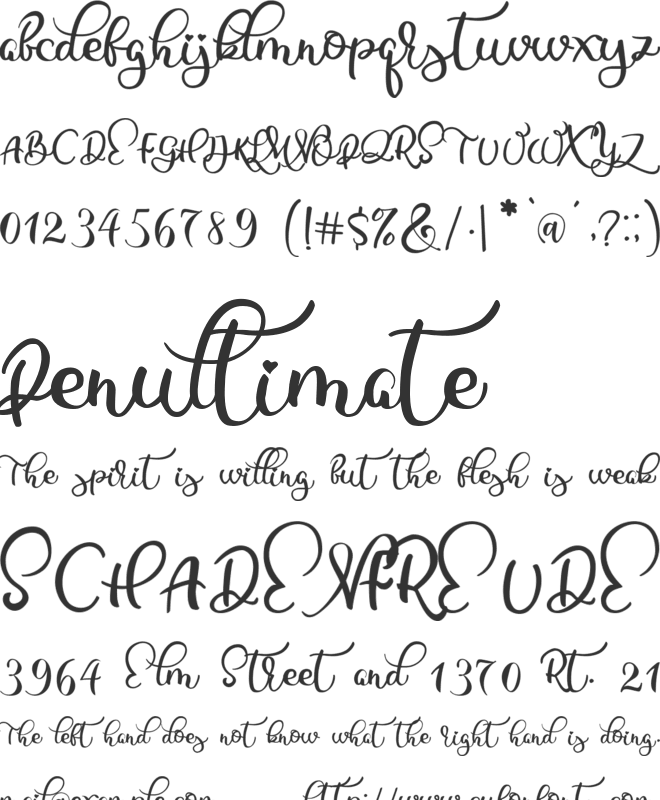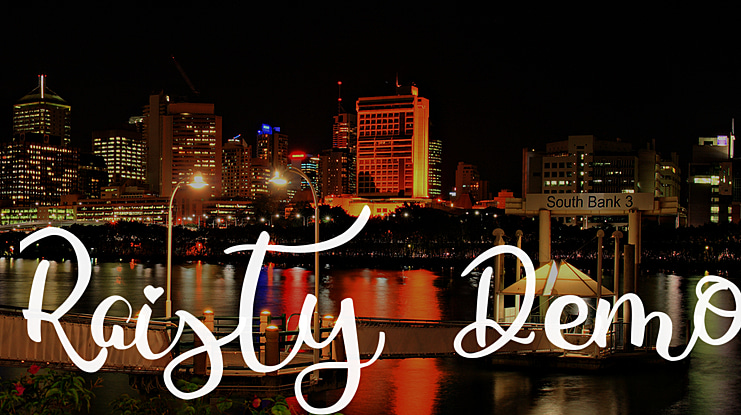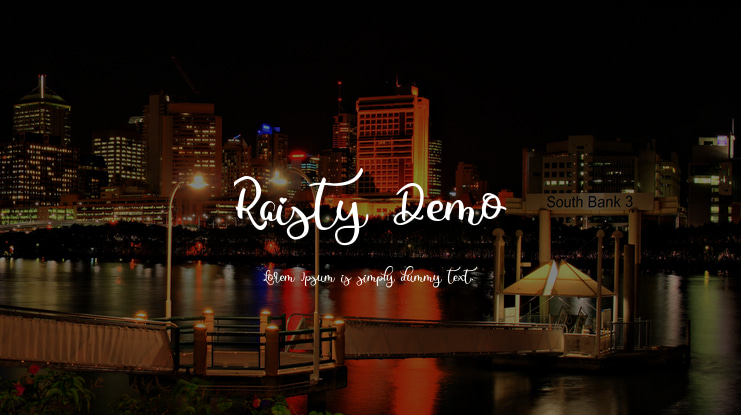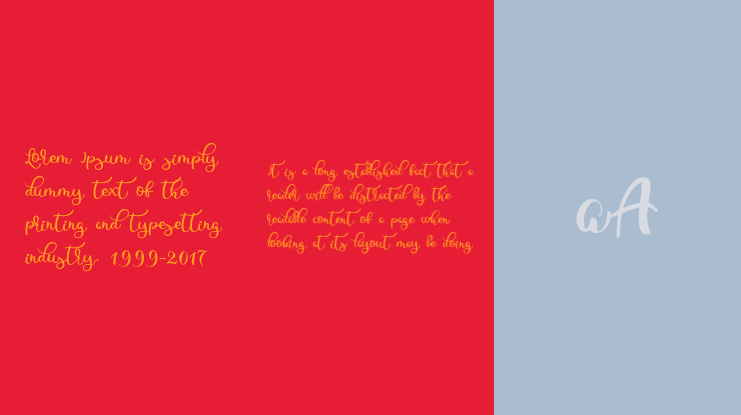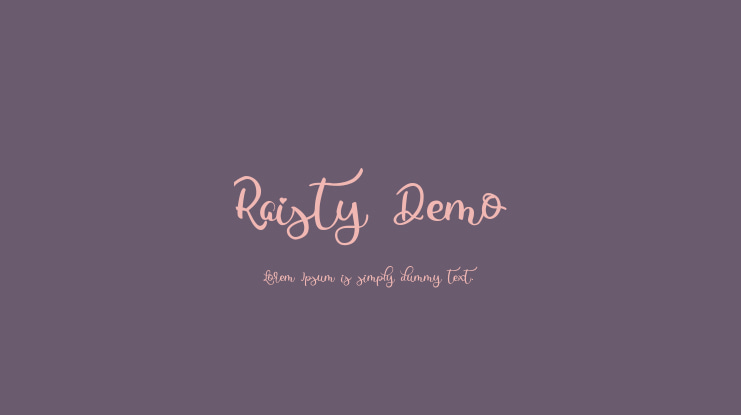
Raisty Demo Font
Raisty is a script font that has flowing lines and fun movements. Its perfect for posters, branding, greeting cards and more! If you want to DONATE click here http://www.paypal.me/amrullah03 I really appreciate your contribution.